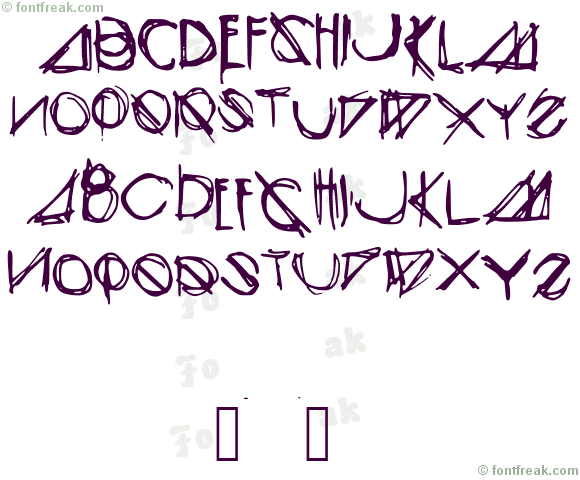
ModernSketch
About ModernSketch
ModernSketch, created by Leonard Posavec, is a unique handwritten font that embodies a contemporary artistic flair. This freeware font features a playful yet structured design, making it an excellent choice for various creative projects. The visual characteristics of ModernSketch include a mix of thick and thin strokes, offering a delightful contrast that adds personality to any text. The irregular spacing between letters and the intentional imperfections mimic the feel of hand-drawn sketches, making it ideal for designs that seek to convey a casual, friendly vibe.
The versatility of ModernSketch allows it to shine in several specific use cases. It works beautifully for wedding invitations, where its informal charm can add a personal touch to the big day. Additionally, it is well-suited for movie posters, capturing the attention of audiences with its artistic flair. Restaurant menus can benefit from its inviting appearance, making dishes feel more approachable and appealing. In the realm of social media, content creators can use ModernSketch to craft eye-catching graphics, enhancing engagement with followers. Graphic designers will find this font invaluable for branding projects that require a distinctive yet approachable aesthetic.
Targeting graphic designers, small business owners, and content creators, ModernSketch is a font that encourages creativity and self-expression. Its unique style sets it apart from more traditional fonts, allowing users to infuse their projects with a sense of individuality. For those looking to elevate their design work, the ModernSketch font free download offers an accessible way to incorporate this distinctive typeface into their toolkit. Whether used for personal projects or professional designs, ModernSketch stands out as an exceptional choice in the world of typography.